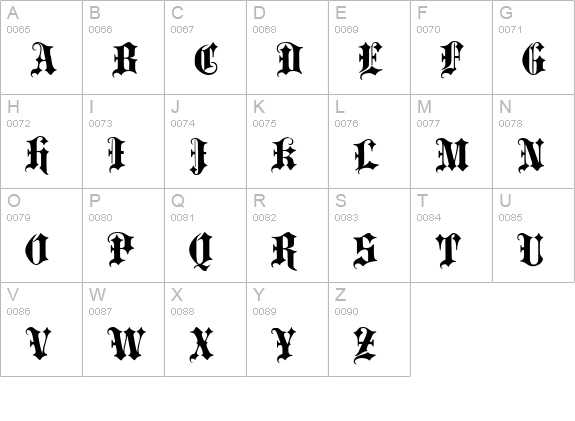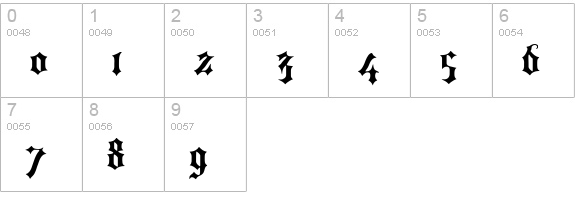
Portcullion Bold Font Details
Portcullion Bold is a strong, high-contrast variant in the Portcullion typeface family \xE2\x80\x94 well suited to headlines, attention-grabbing titles, and strong calls-to-action.
Portcullion Bold is a modern and versatile font that exudes confidence and sophistication. Its clean lines and bold strokes make it perfect for a wide range of design projects, from branding to editorial design. The strong, commanding presence of Portcullion Bold will make any text stand out with style and elegance. And the best part? Portcullion Bold is available for free download at FontsMarket.com! This means you can elevate your designs without having to worry about breaking the bank. Embrace the boldness and creativity of Portcullion Bold today and take your projects to the next level.